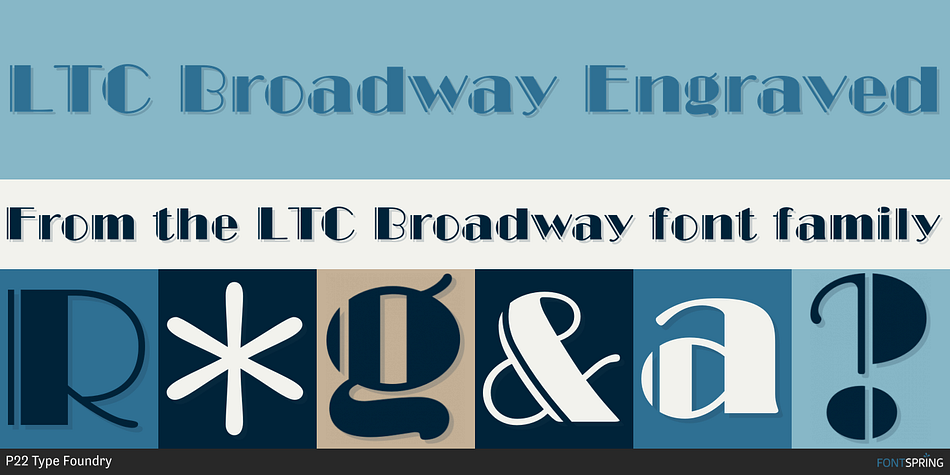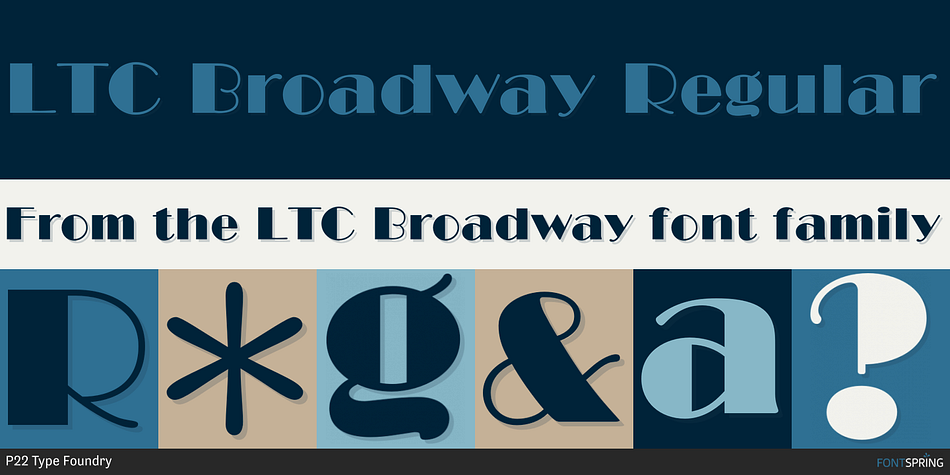
Designed by Morris Fuller Benton and Sol Hess, LTC Broadway is a art deco font family. This typeface has two styles and was published by P22 Type Foundry.
Broadway was originally designed by Morris Fuller Benton for ATF in 1927. Sol Hess added a lower case in 1929. Hess also drew Broadway Engraved in 1928 for Lanston Monotype. Broadway has become somewhat of a classic icon as an “Art Deco” typeface.